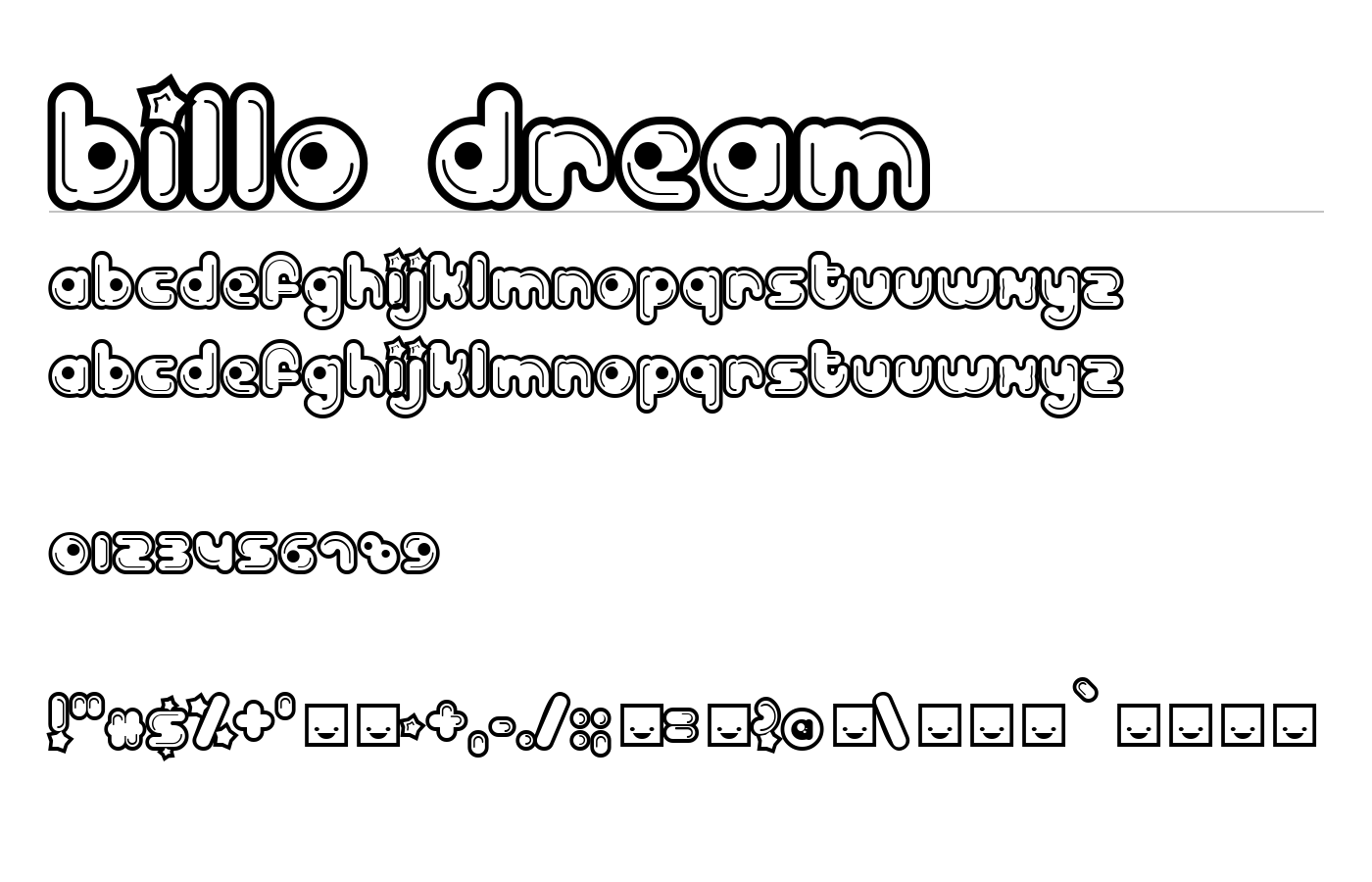
Billo Dream is a playful, rounded sans serif font featuring bold, outlined letterforms with a distinctive double-line style and whimsical star accents. Its bubbly, soft shapes and consistent weight give it a cheerful, youthful vibe ideal for fun branding, children’s products, and casual headlines. This font shines in creative, energetic contexts where a lighthearted and approachable look is desired.
Billo Dream Font